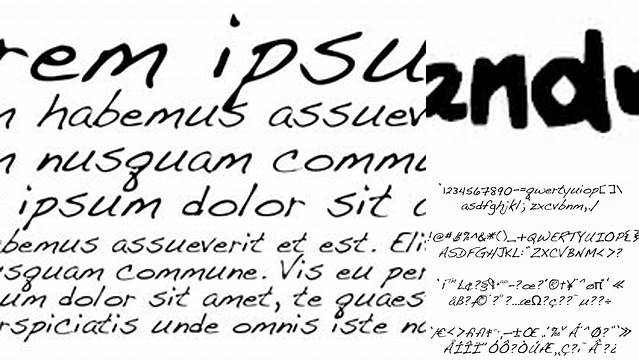
Handwriting Dakota: Free Font Download & Usage Tips
Hey guys! Are you on the hunt for a font that screams authenticity and personal touch? Well, you've landed in the right place! Today, we're diving deep into the world of the Handwriting Dakota Regular font, a typeface that beautifully mimics the charm of handwritten script. In this comprehensive guide, we'll explore everything you need to know about this font, including where to find it for free download, its unique features, and how to use it effectively in your projects. Whether you're a seasoned designer or just starting out, understanding the nuances of fonts like Handwriting Dakota Regular can significantly elevate your creative work. The font’s appeal lies in its ability to add a human element to digital designs, bridging the gap between the polished perfection of computers and the organic flow of handwriting. Think about it – in a world dominated by sleek, sans-serif fonts, a touch of handwritten style can make your message stand out, capturing attention and conveying warmth. This font isn't just about aesthetics; it's about making a connection. When you choose a handwritten font, you're choosing to communicate on a more personal level, inviting your audience to engage with your content in a different way. It’s like extending a hand in friendship, offering a sense of familiarity and comfort that’s often missing in the digital realm. So, let’s get started and uncover the secrets of Handwriting Dakota Regular and how it can transform your creative projects. We'll cover everything from the font's origins and design to practical tips for using it effectively. By the end of this guide, you'll have a solid understanding of why this font is so popular and how you can make the most of it in your own work.
What is Handwriting Dakota Regular Font?
Before we get into the nitty-gritty of downloading and using this fantastic font, let's first understand what Handwriting Dakota Regular actually is. This font is a typeface designed to replicate the natural, flowing style of human handwriting. It's characterized by its slightly imperfect lines, varying stroke widths, and overall casual feel. Unlike traditional fonts that are meticulously crafted with perfect symmetry and consistency, Handwriting Dakota Regular embraces the quirks and inconsistencies that make handwriting so unique and personal. This font falls into the category of script fonts, which are designed to mimic the cursive style of handwriting. However, Handwriting Dakota Regular has its own distinct personality. It's not overly formal or ornate, making it versatile for a wide range of applications. Think of it as the friendly, approachable cousin of more formal script fonts. The beauty of Handwriting Dakota Regular lies in its ability to add a human touch to digital designs. In a world saturated with sleek, digital fonts, a handwritten style can stand out and create a sense of authenticity. It's the perfect choice when you want your message to feel personal, approachable, and genuine. For instance, imagine using this font for a wedding invitation, a thank-you note, or a social media graphic. The handwritten style adds an element of warmth and intimacy that can't be achieved with a standard font. But it's not just about aesthetics; the choice of font can also impact how your message is perceived. A handwritten font can evoke feelings of nostalgia, comfort, and connection. It's a subtle way to communicate that you care about your audience and that you've put thought and effort into your communication. So, whether you're designing a logo, creating marketing materials, or simply looking for a font to spice up your personal projects, Handwriting Dakota Regular offers a unique blend of style and personality that's hard to resist. It's a font that speaks volumes without saying a word, making it a valuable addition to any designer's toolkit.
So, what makes Handwriting Dakota Regular stand out from the crowd? Let's dive into the key features and characteristics that define this unique font. First and foremost, it's the natural, flowing script. The font mimics the look and feel of real handwriting, with its slightly uneven lines and varying stroke widths. This gives it an organic, human touch that's often missing in more structured fonts. Think of the subtle variations in pressure that you naturally apply when writing with a pen – Handwriting Dakota Regular captures those nuances beautifully. Another key characteristic is its legibility. While some script fonts can be difficult to read, Handwriting Dakota Regular strikes a balance between style and clarity. The letters are well-formed and distinct, making it easy to read even in longer blocks of text. This is crucial because, let's face it, a beautiful font is useless if no one can decipher your message. The font also boasts a casual and friendly tone. It's not overly formal or pretentious, making it suitable for a wide range of applications. Whether you're designing a birthday card, a website header, or a social media post, Handwriting Dakota Regular brings a sense of warmth and approachability to your work. This is particularly important in today's digital world, where authenticity and connection are highly valued. Furthermore, Handwriting Dakota Regular offers versatility. It works well in both headlines and body text, although it shines brightest when used for shorter bursts of text or to add emphasis. Imagine using it to highlight a key quote, add a personal touch to a business card, or create a memorable logo. The possibilities are endless! The font’s design also includes subtle details that enhance its handwritten feel. You'll notice slight variations in the letterforms, as if they were written by hand each time. This adds to the font's charm and prevents it from looking too repetitive or artificial. It's these little touches that truly set Handwriting Dakota Regular apart from other script fonts. In summary, Handwriting Dakota Regular is a font that combines style, legibility, and personality. Its natural, flowing script, casual tone, and versatility make it a valuable asset for any designer or creative individual. It’s a font that invites connection and adds a human touch to your digital designs.
Tips for Using Handwriting Dakota Regular Effectively
Now that you've got Handwriting Dakota Regular installed, let's talk about how to use it effectively in your projects. This font has a lot of personality, but like any design element, it's important to use it strategically to achieve the best results. First and foremost, consider the context. Handwriting Dakota Regular is a casual and friendly font, so it's best suited for projects that convey a warm, personal touch. Think invitations, thank-you notes, social media graphics, and branding materials for small businesses. It might not be the best choice for formal documents or corporate reports, where a more professional font is required. Use it sparingly. While Handwriting Dakota Regular is beautiful, it can lose its impact if it's overused. Try using it for headlines, subheadings, or short bursts of text, and pair it with a more neutral font for body text. This will create a balanced and visually appealing design. Think of it as adding a sprinkle of personality rather than drowning your design in it. Pay attention to readability. While Handwriting Dakota Regular is relatively legible for a script font, it's still important to ensure that your text is easy to read. Avoid using it in very small sizes or with tight line spacing. Experiment with different font sizes and spacing options to find the sweet spot. Pair it with the right fonts. The fonts you choose to pair with Handwriting Dakota Regular can have a big impact on the overall look and feel of your design. A clean, sans-serif font like Open Sans or Montserrat can create a nice contrast and make the handwritten font stand out. Alternatively, you can pair it with a classic serif font like Times New Roman for a more traditional feel. Consider the color palette. The colors you use in your design can also influence how Handwriting Dakota Regular is perceived. Warm, earthy tones can enhance the font's casual and friendly vibe, while cooler colors can give it a more modern and sophisticated look. Experiment with different weights and styles. Some fonts come in multiple weights (e.g., light, regular, bold) and styles (e.g., italic). Experimenting with these variations can add depth and visual interest to your designs. Don't be afraid to break the rules. While these tips are a good starting point, the best way to learn how to use Handwriting Dakota Regular effectively is to experiment and see what works best for your specific project. Design is a creative process, so trust your instincts and have fun! By keeping these tips in mind, you can harness the power of Handwriting Dakota Regular to create stunning designs that capture attention and convey your message with personality and warmth.
Examples of Effective Use
To truly appreciate the versatility of Handwriting Dakota Regular, let's take a look at some examples of how it can be used effectively in various design projects. Imagine you're creating wedding invitations. Handwriting Dakota Regular can add a touch of romance and elegance to your invitations, making them feel personal and heartfelt. Pair it with a delicate paper stock and some beautiful floral illustrations for a truly stunning result. Or perhaps you're designing thank-you notes. A handwritten font is the perfect choice for expressing gratitude, as it conveys a sense of sincerity and thoughtfulness. Use Handwriting Dakota Regular for the main message and pair it with a simple, elegant layout. This font shines in social media graphics. In a sea of perfectly polished posts, a handwritten font can help your content stand out and grab attention. Use it for quotes, announcements, or to add a personal touch to your brand's visuals. For branding materials for small businesses, Handwriting Dakota Regular can help create a unique and memorable identity. It's particularly well-suited for businesses that want to convey a sense of warmth, authenticity, and approachability. Think coffee shops, bakeries, handmade goods shops, and creative studios. This font can enhance website headers and banners. A handwritten font can add personality and visual interest to your website, making it more engaging for visitors. Use it sparingly, and be sure to choose a font size that's easy to read. Consider using Handwriting Dakota Regular for logo design. A handwritten font can give your logo a unique and memorable look, helping your brand stand out from the competition. It's important to ensure that the font is legible and scalable for different applications. If you are creating greeting cards, a handwritten font is a natural choice for conveying personal messages. Whether it's a birthday card, a holiday card, or a simple note of encouragement, Handwriting Dakota Regular can add a touch of warmth and sincerity. The font works well in blog headers and titles. A handwritten font can add personality and visual interest to your blog, making it more inviting for readers. Pair it with a clean, easy-to-read font for the body text. These are just a few examples of the many ways you can use Handwriting Dakota Regular effectively. The key is to consider the context, use it strategically, and pair it with other design elements that complement its style. With a little creativity and experimentation, you can harness the power of this beautiful font to create stunning designs that capture attention and convey your message with personality and warmth.
So there you have it, guys! A comprehensive guide to the Handwriting Dakota Regular font. We've covered everything from what it is and its key features to where to download it for free and how to use it effectively in your designs. This font is a fantastic tool for adding a personal and authentic touch to your projects. Its natural, flowing script and casual tone make it perfect for a wide range of applications, from wedding invitations to social media graphics. Remember, the key to using Handwriting Dakota Regular effectively is to consider the context and use it strategically. It's a font that shines when used sparingly and paired with other design elements that complement its style. Don't be afraid to experiment and see what works best for your specific project. The world of fonts is vast and exciting, and Handwriting Dakota Regular is just one gem in the treasure trove. By understanding its unique characteristics and how to use it effectively, you can elevate your designs and create visuals that truly resonate with your audience. Whether you're a seasoned designer or just starting out, adding a handwritten font like Handwriting Dakota Regular to your toolkit can open up a world of creative possibilities. It's a font that invites connection, conveys warmth, and adds a touch of personality to your work. So go ahead, download it, install it, and start experimenting! I can't wait to see what you create. And remember, design is a journey, not a destination. Embrace the process, learn from your mistakes, and never stop exploring new ways to express your creativity. With a little bit of practice and a lot of passion, you can create designs that are not only visually stunning but also meaningful and impactful. So, let's get out there and make some magic happen with Handwriting Dakota Regular! Happy designing, everyone!